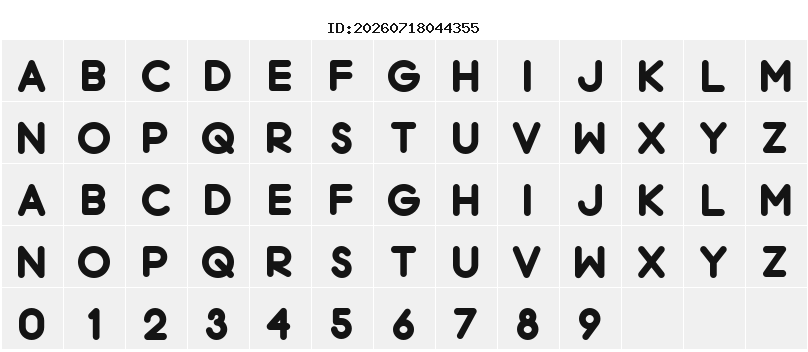
Chrome Black Preview
• Font Name: Chrome Black
• Designer: Artem Sukhinin
About Chrome Black.ttf
Chrome Black.ttf is a modern, elegant sans-serif font designed for ultimate readability and visual harmony. Perfect for branding, headlines, web design, and print materials.